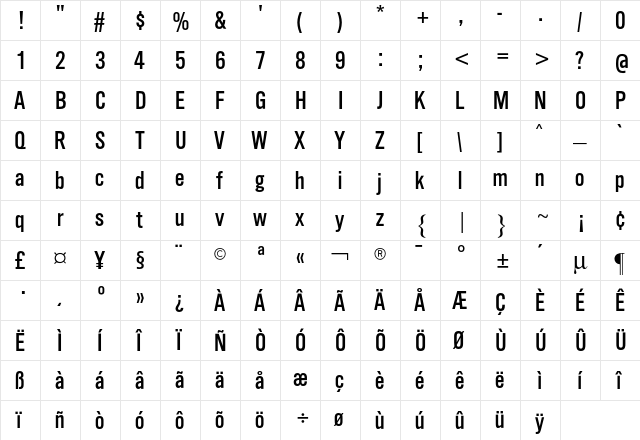
Alpin Gothic CG No3 Regular
Design Context for Alpin Gothic CG No3 Typeface
Alpin Gothic CG No3 has the quiet confidence of well-executed sans-serif typography: versatile, unobtrusive, and dependable at any size.
Font Pairing: Works well alongside a characterful serif or display font that can carry the expressive load while Alpin Gothic CG No3 handles the functional copy.
Pro Tip: Pair Alpin Gothic CG No3 with a display or serif font for headlines — its neutral character makes it an excellent supporting player in complex typographic systems.